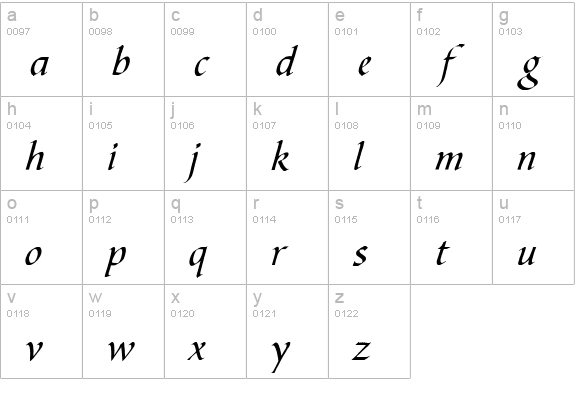
CalligraphScript-Regular is the standard, neutral variant in the CalligraphScript typeface family \xE2\x80\x94 well suited to general body text, paragraphs, and standard typographic work.
CalligraphScript-Regular is an elegant and sophisticated font that exudes a sense of timeless beauty and grace. With its flowing and intricate strokes, this font captures the artistry and skill of traditional calligraphy. Its classic style lends an air of refinement to any project, making it perfect for invitations, wedding stationery, and formal documents. What sets CalligraphScript-Regular apart is not only its exquisite design but also the fact that it is available for free download at FontsMarket.com. This means that you can easily access this stunning font without any cost, allowing you to add a touch of elegance to your designs without breaking the bank. Whether you're a designer looking for a high-quality calligraphy font or someone who simply appreciates the beauty of fine typography, CalligraphScript-Regular is sure to impress. Download it for free today and elevate your projects with its timeless charm.